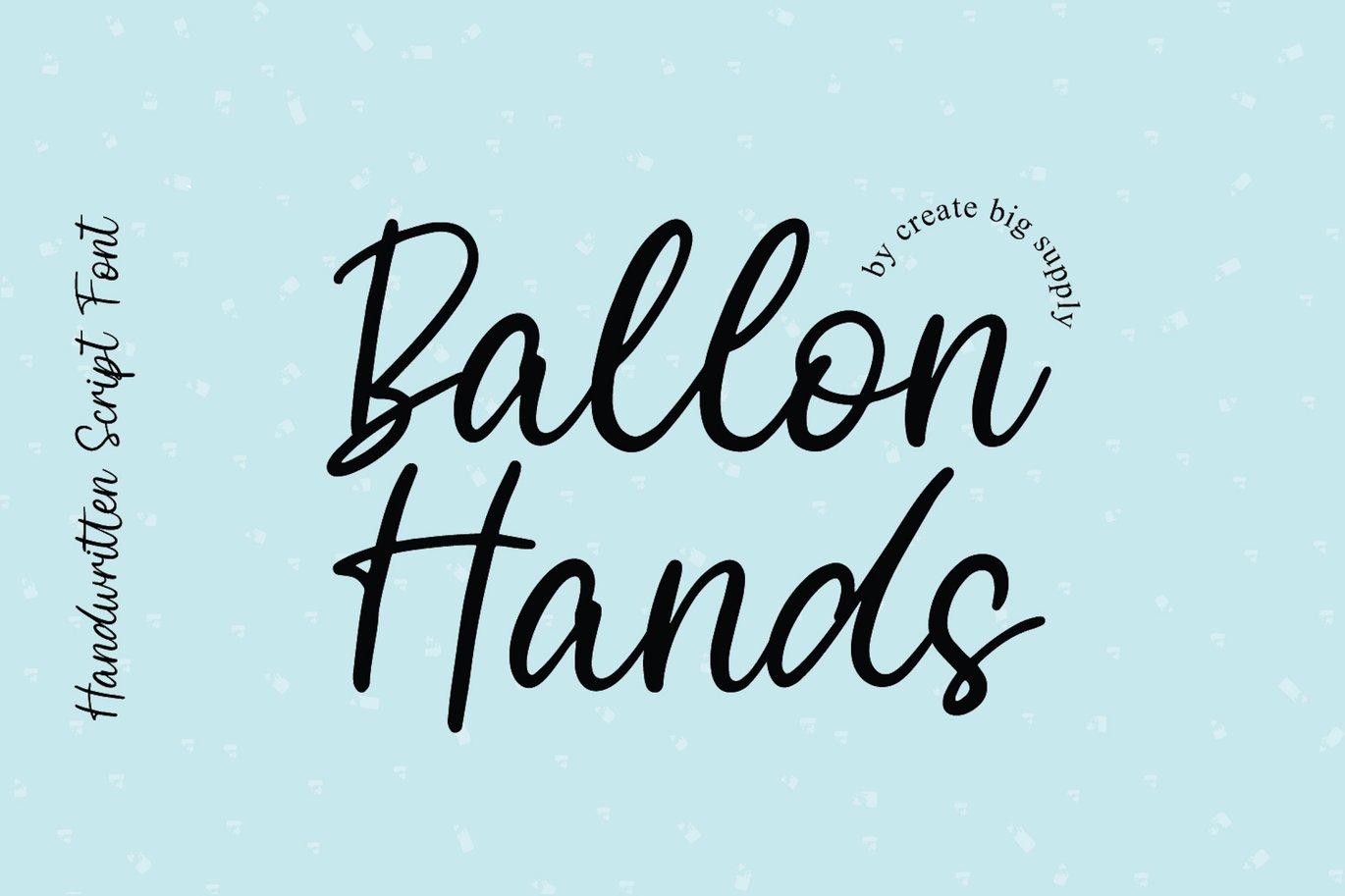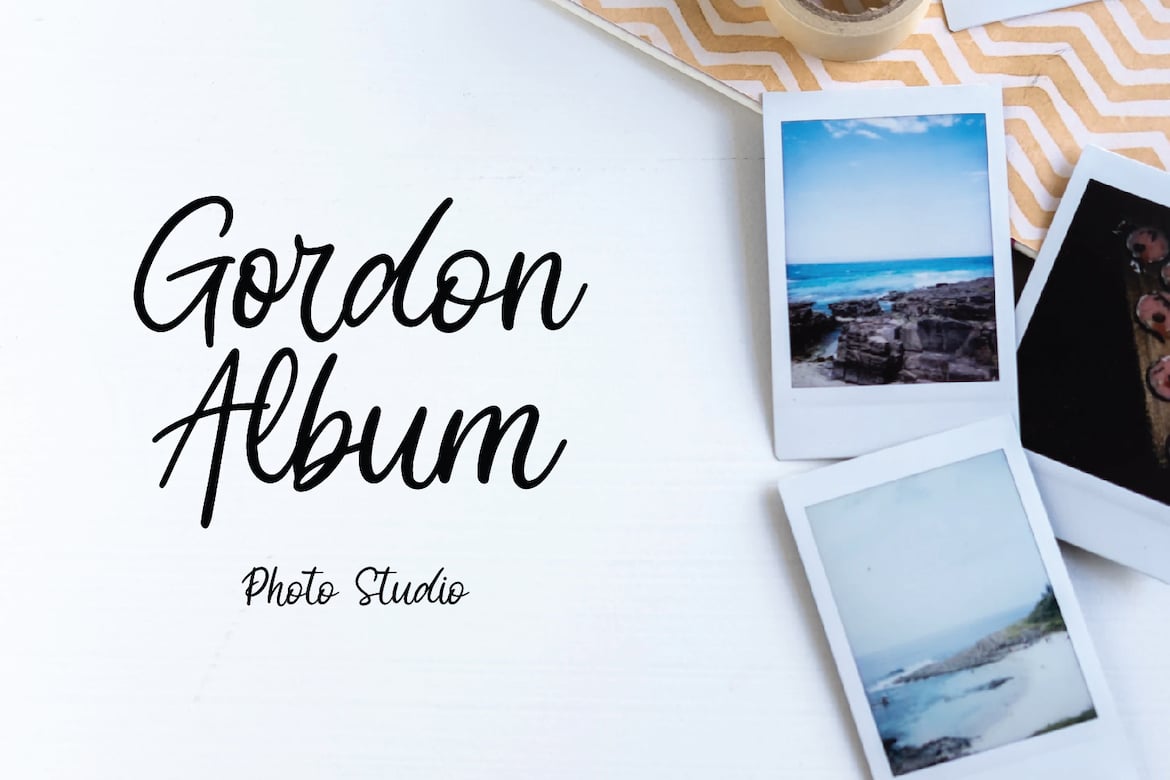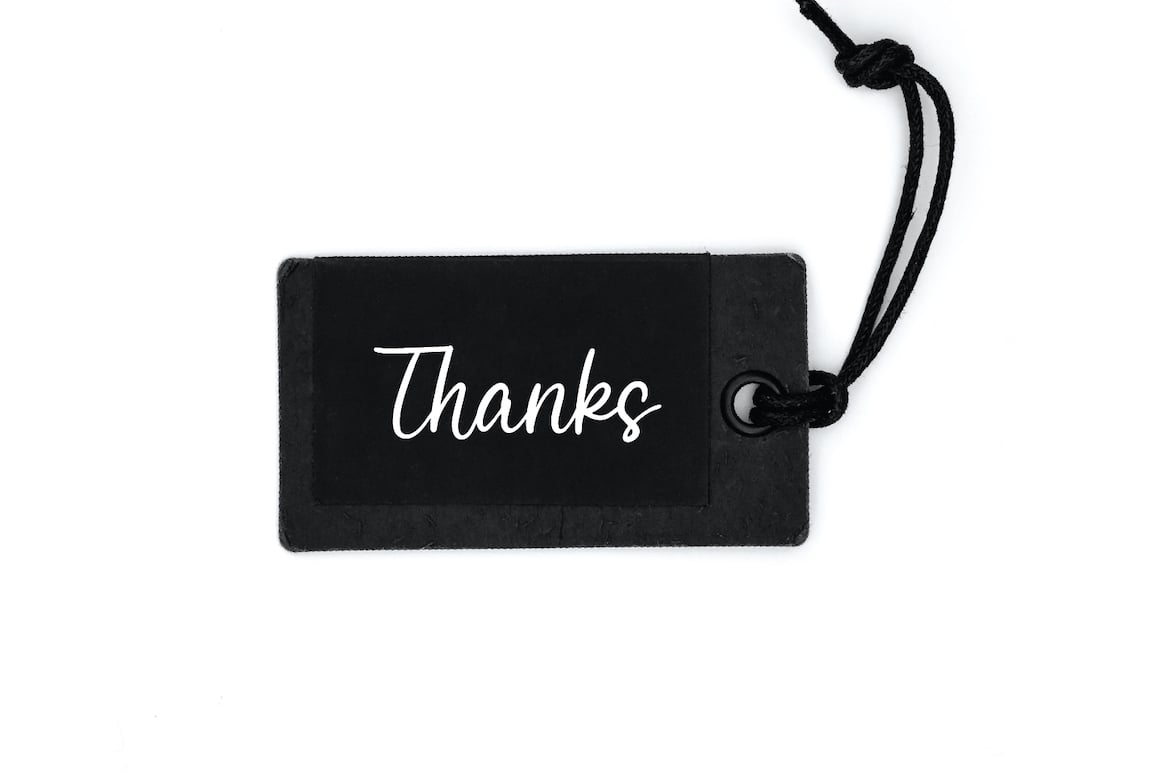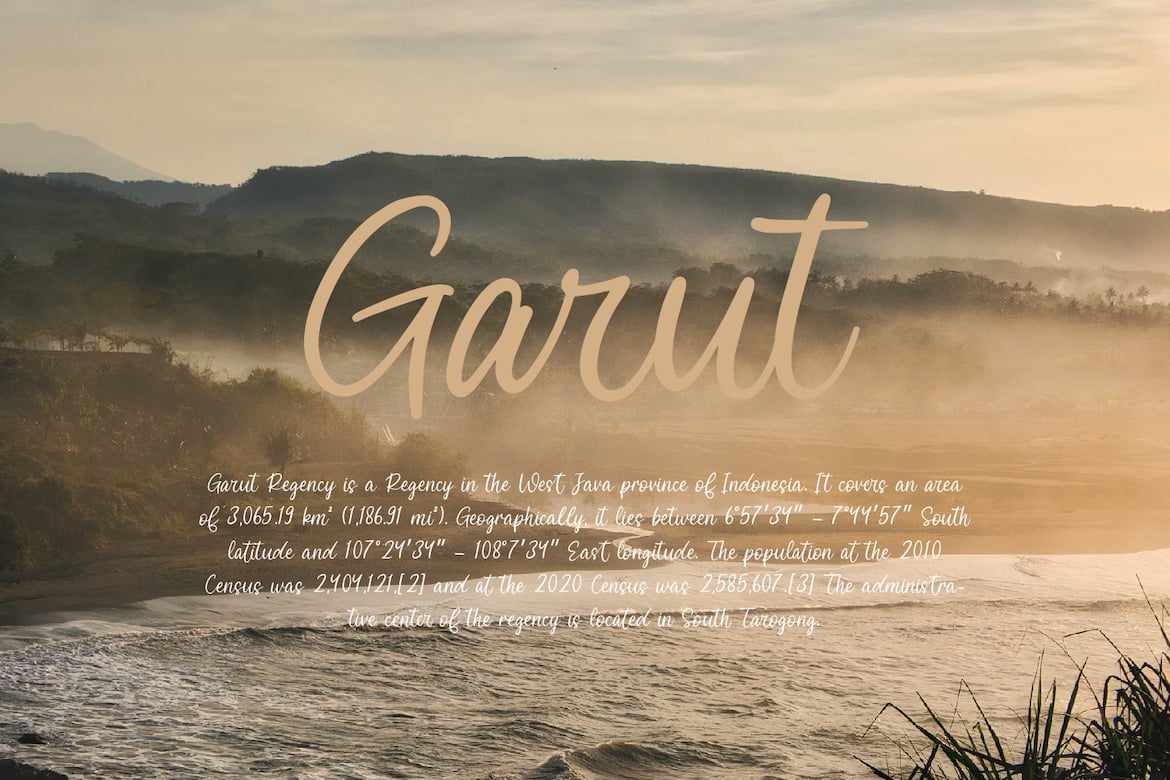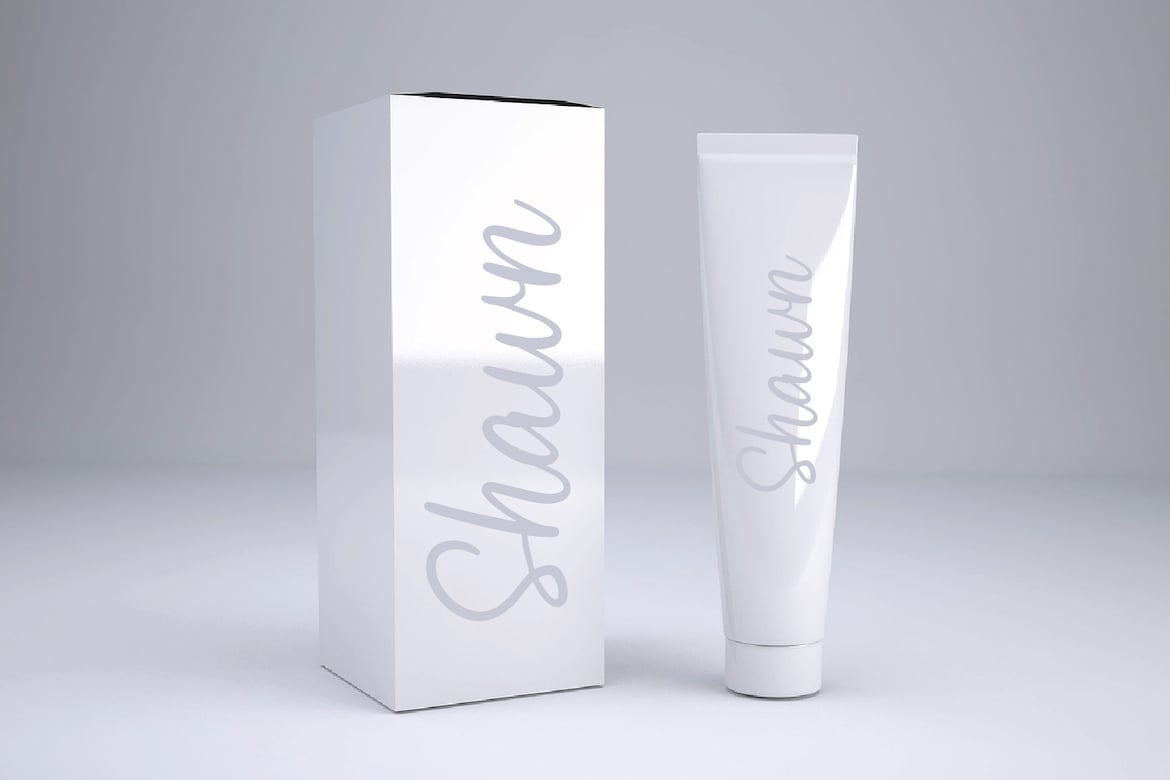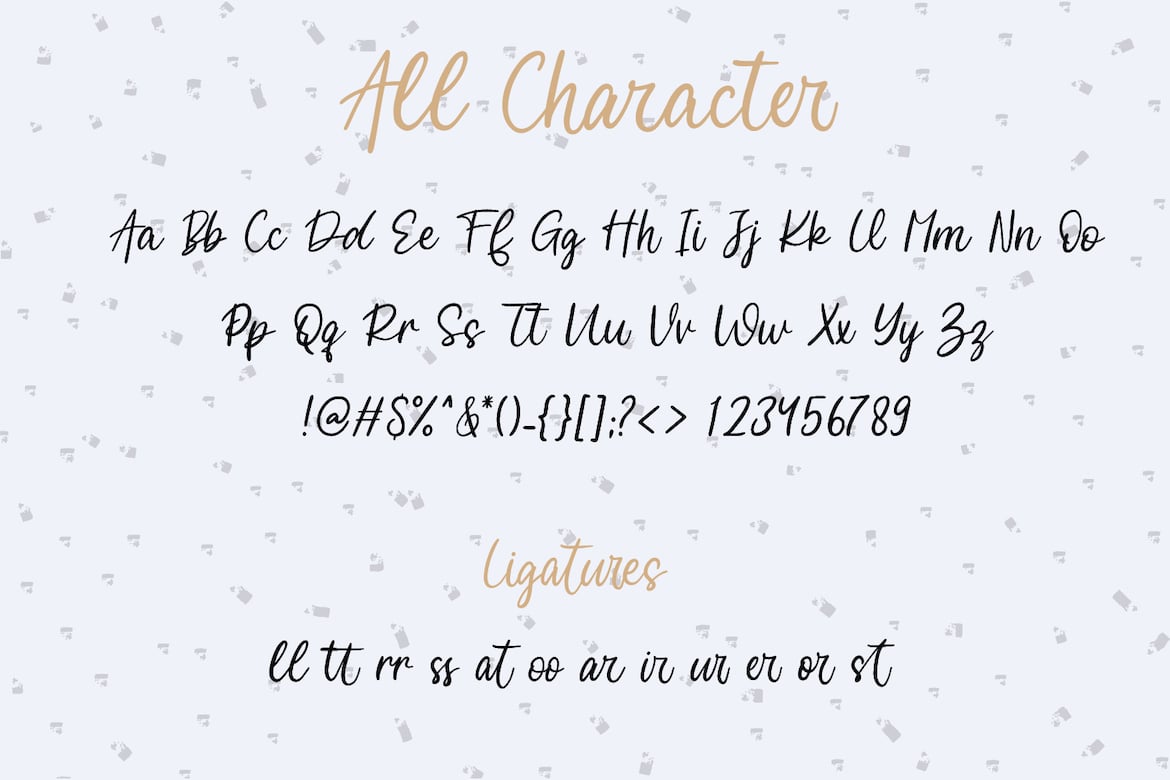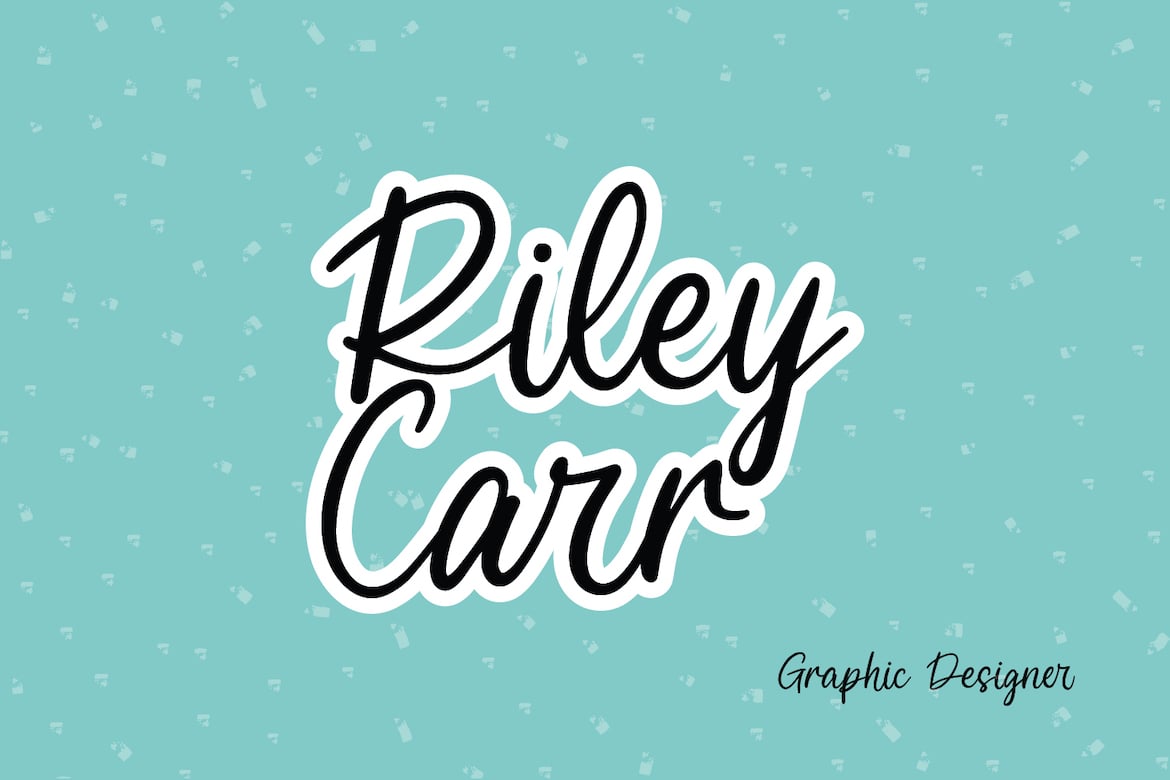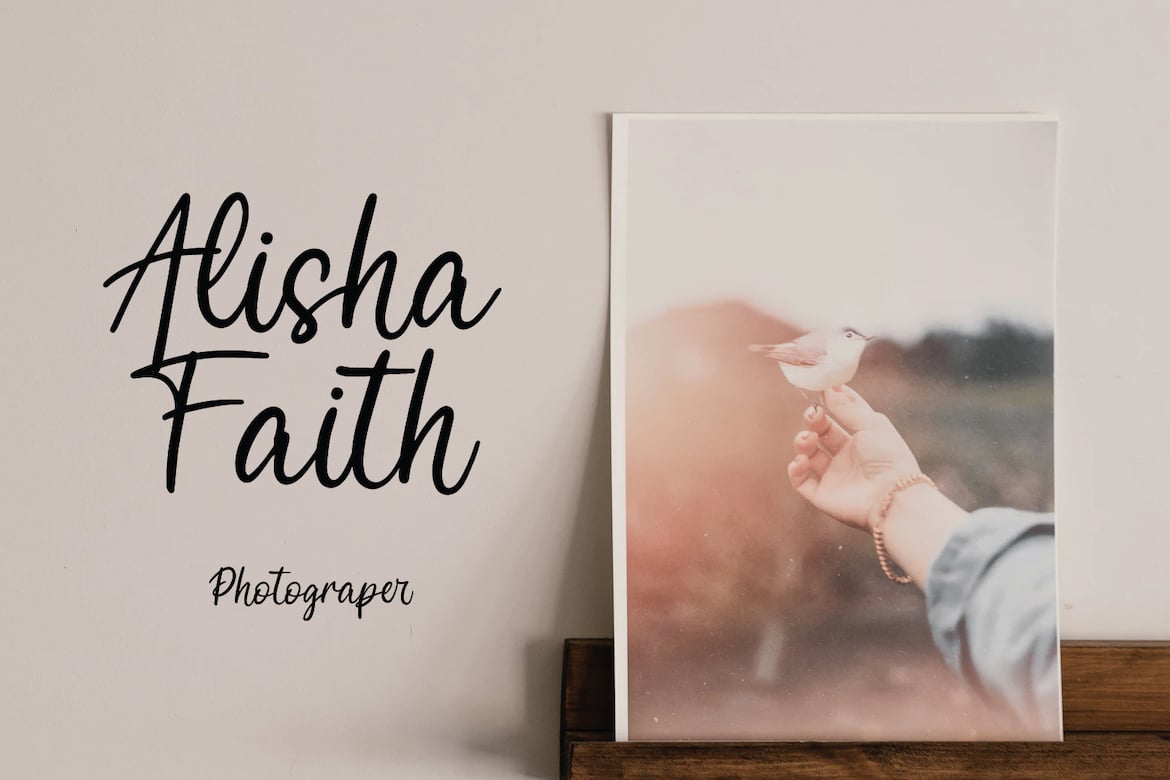
Balloon Hands – Modern Handwritting Script Font
Introducing, Balloon Hands. With a natural handwriting script style, perfect for all of your craft projects. This font is perfect for websites, svg designs, home decor, branding, blogs, logos, invitations and more.\
Uppercase & lowercase
Numbers and punctuation
Ligatures